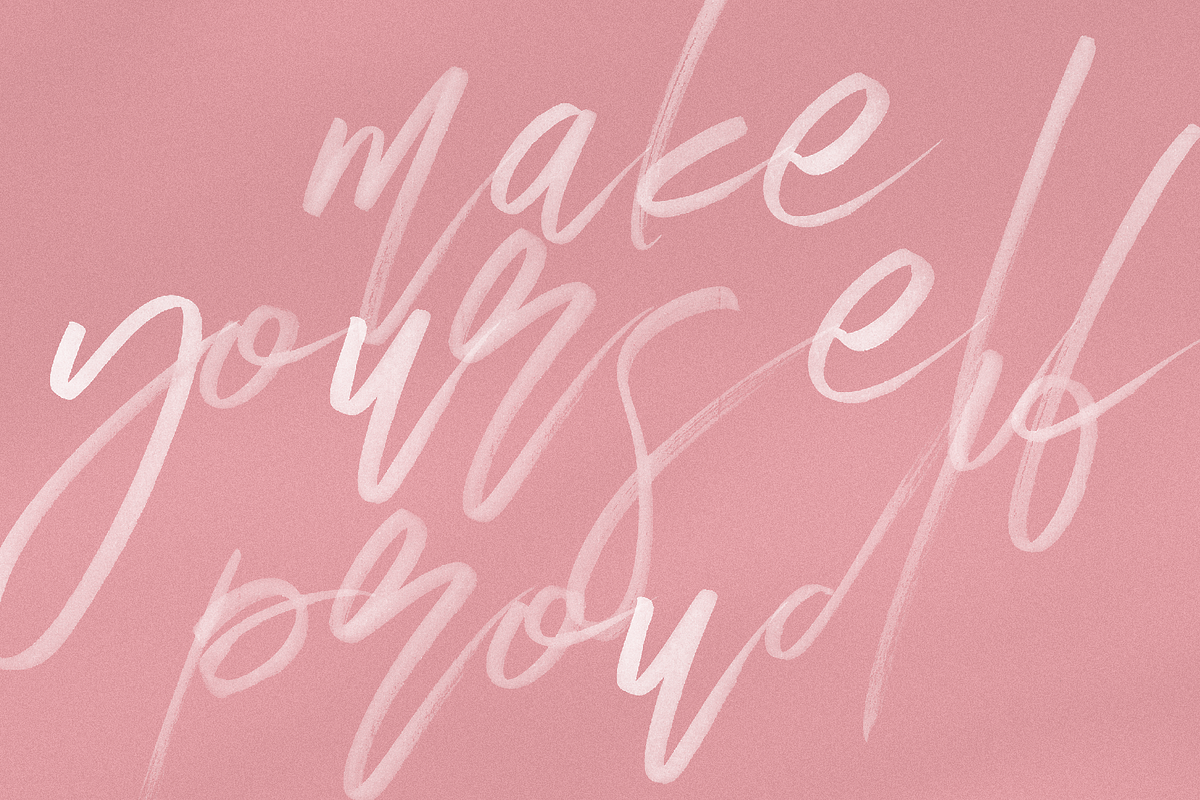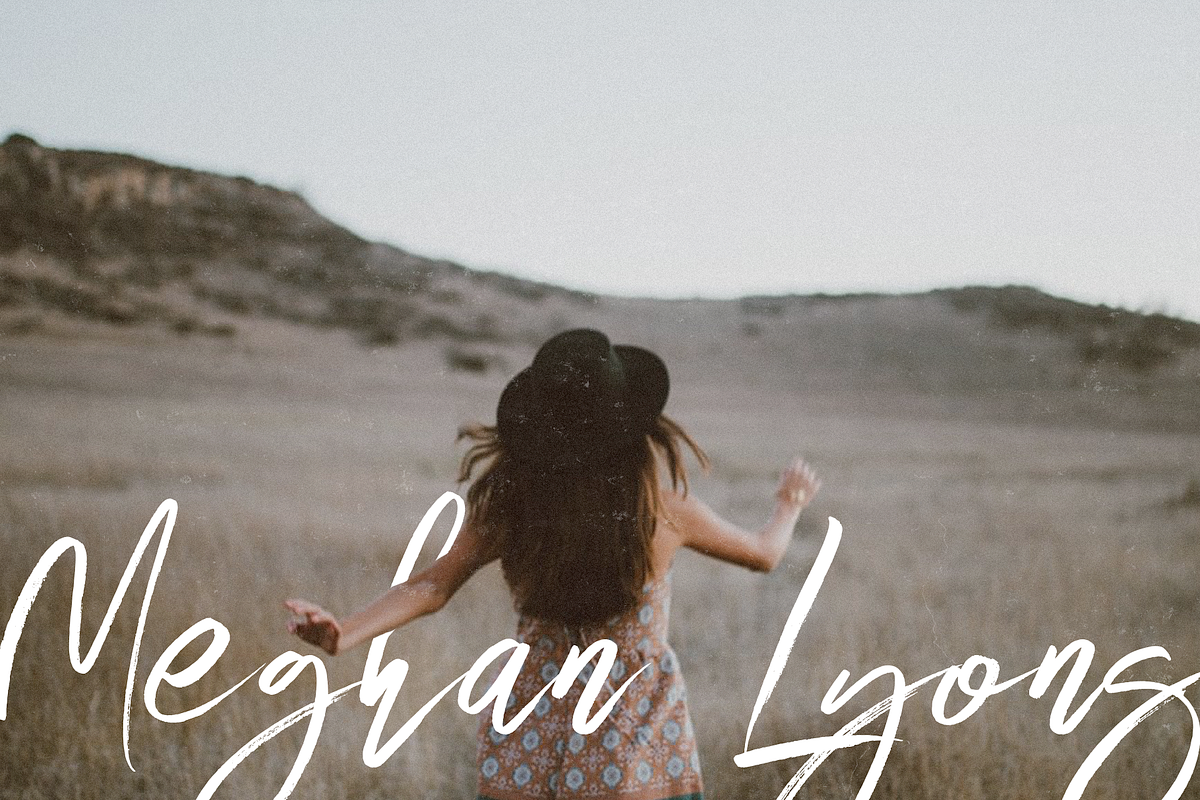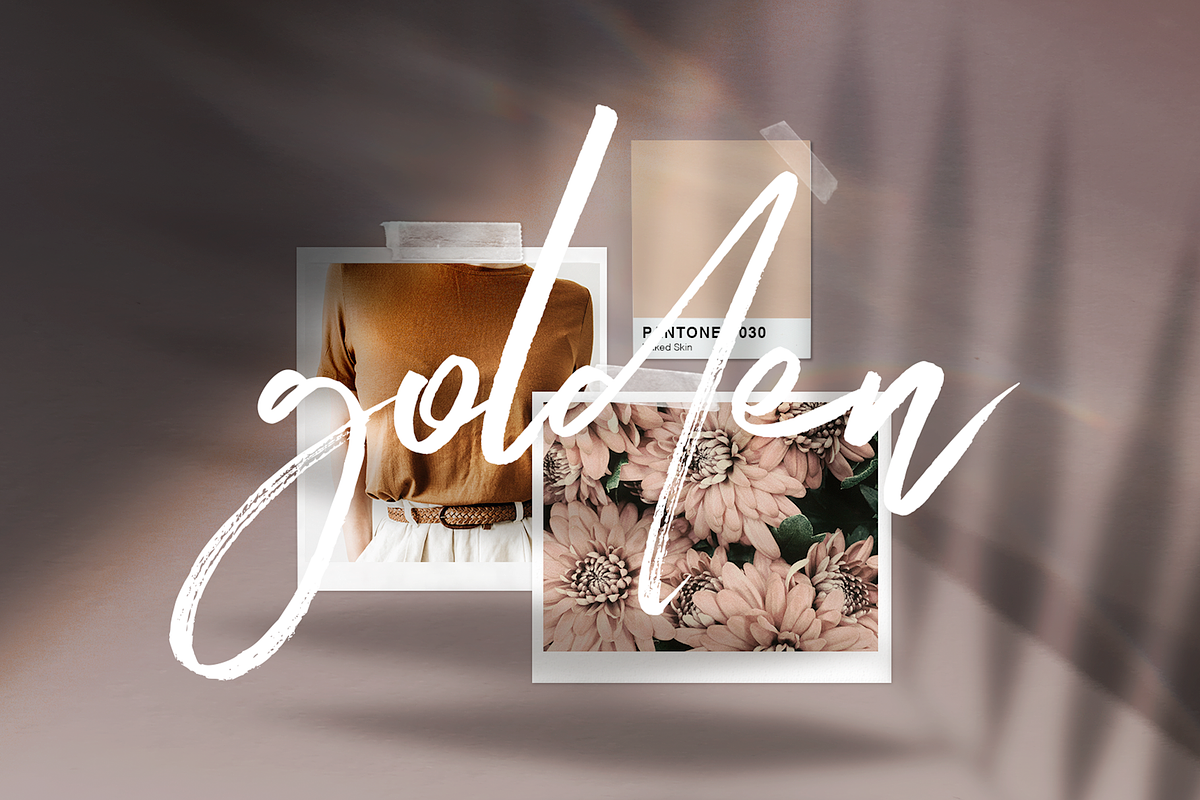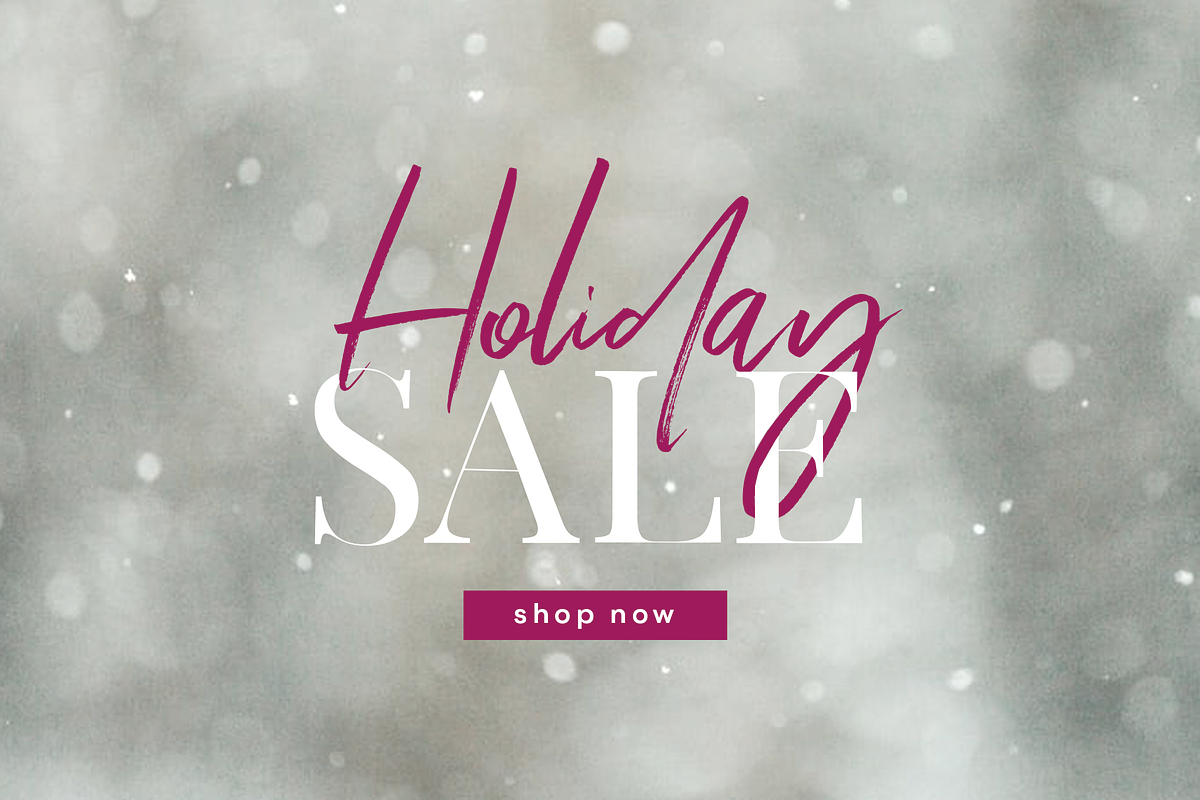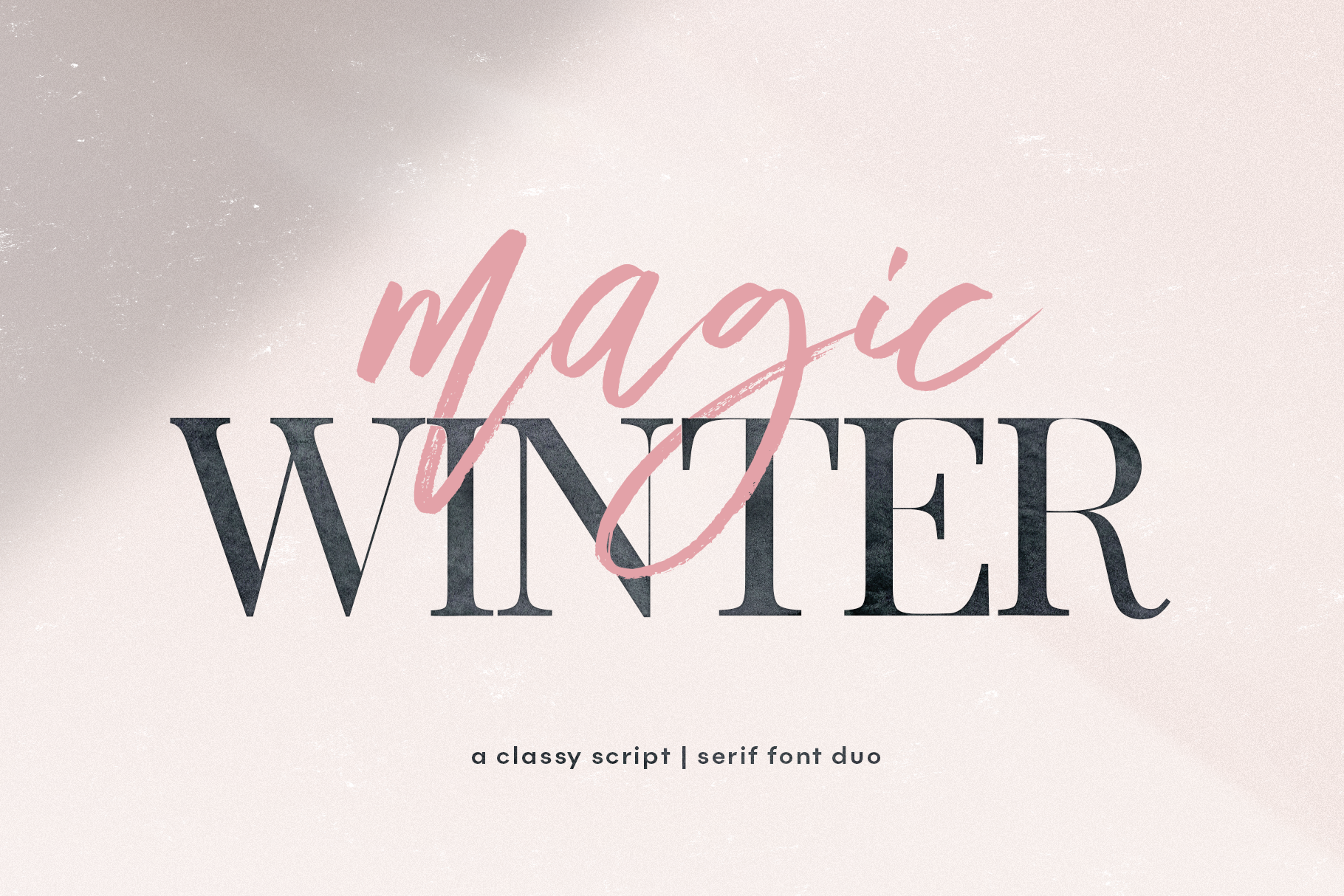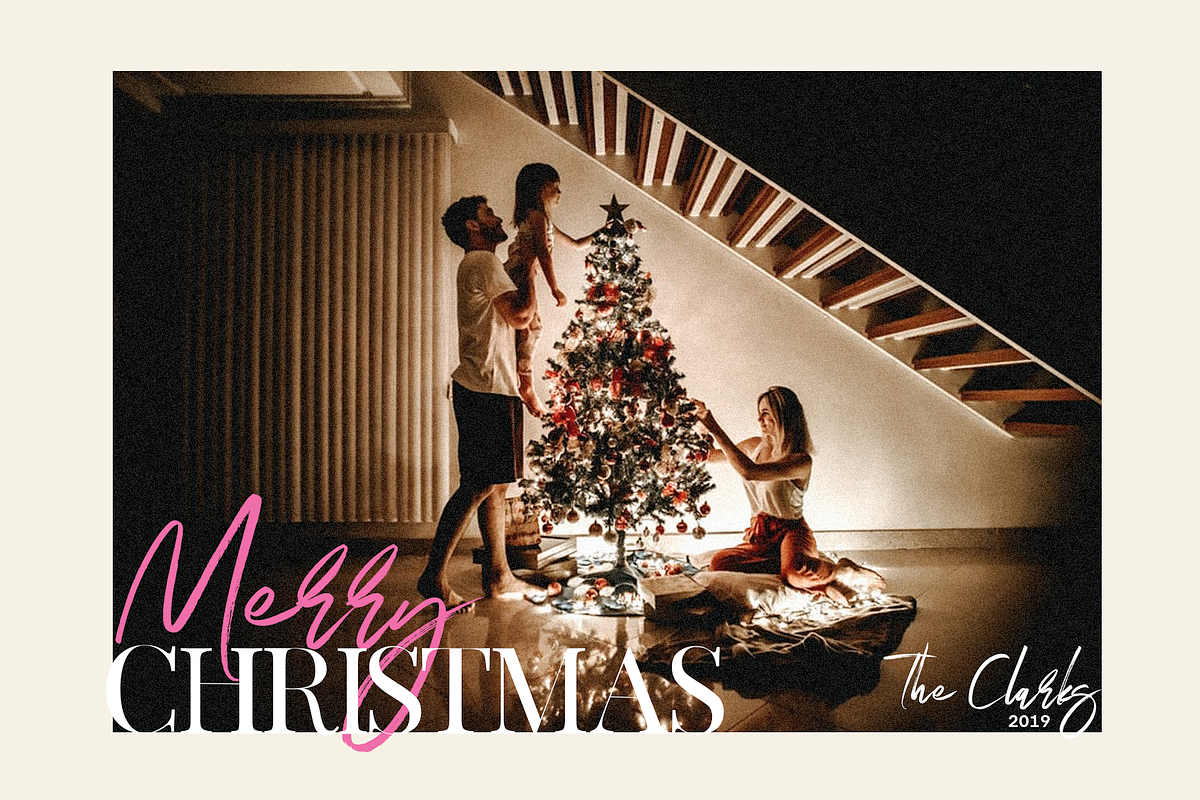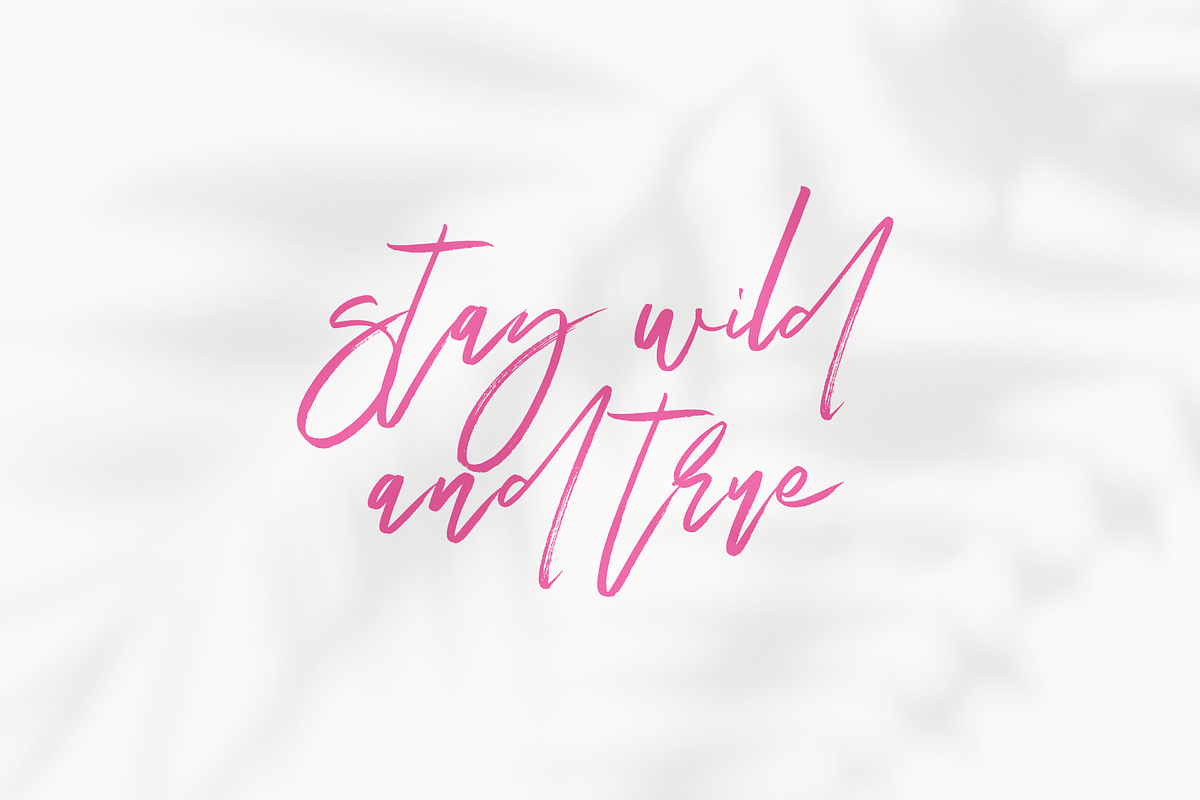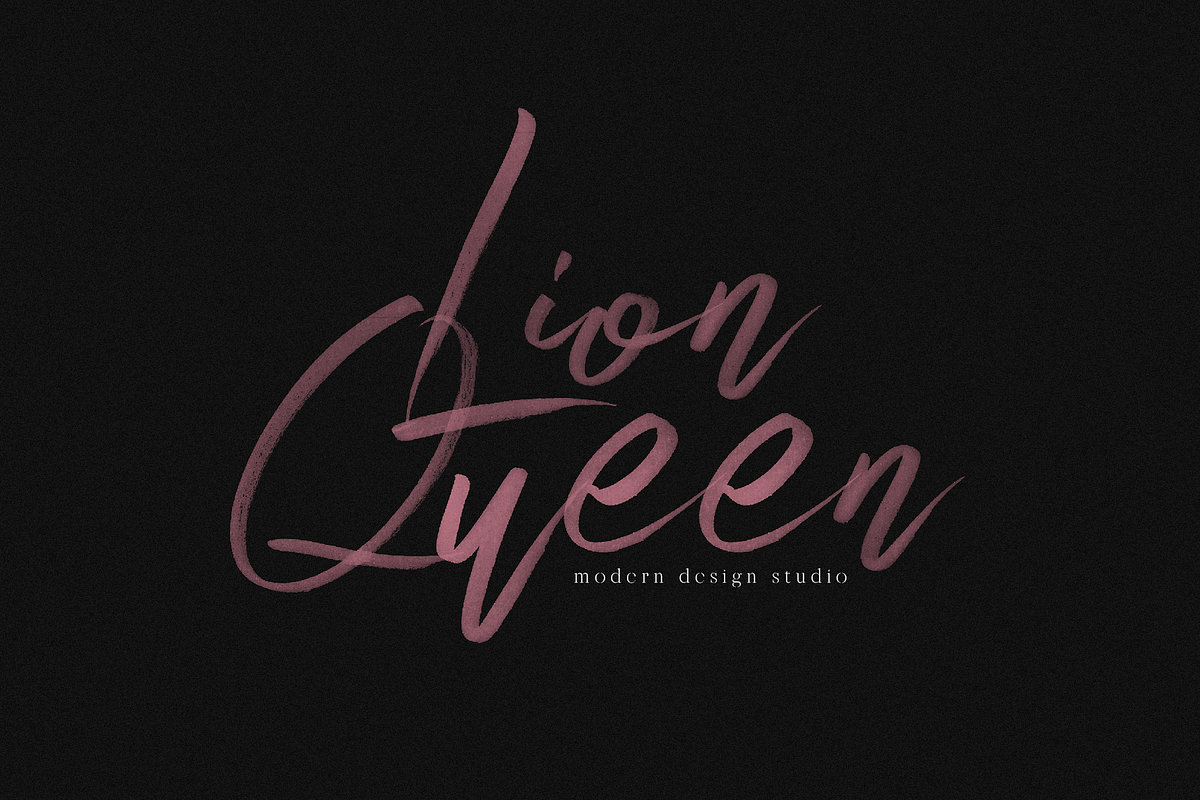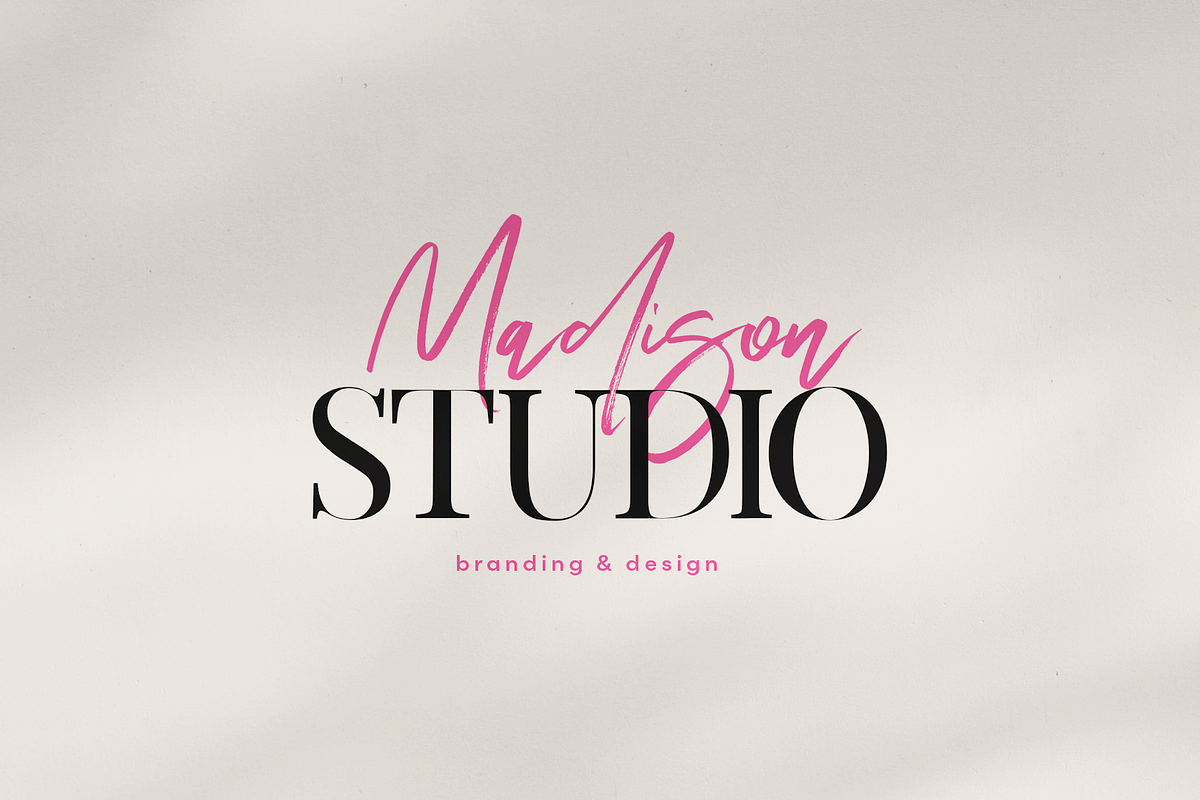
Magic Winter | Script Serif Font Duo
Magic Winter is a script & serif font duo. This collection feels both modern and chic. The heavy brush script pairs so well with the elegant & contrast serif.
Magic Winter is perfect for modern projects, advertisements, business cards, signatures, headings, blogs, logos, brandings, invitations and more!